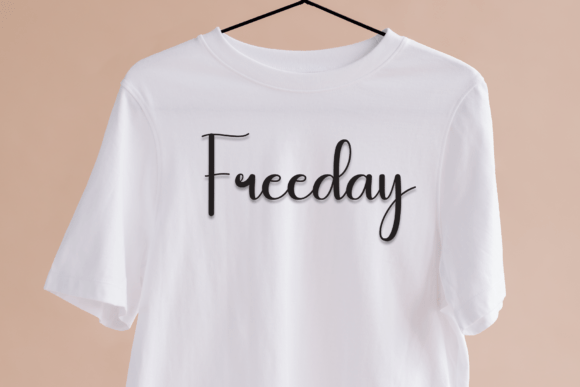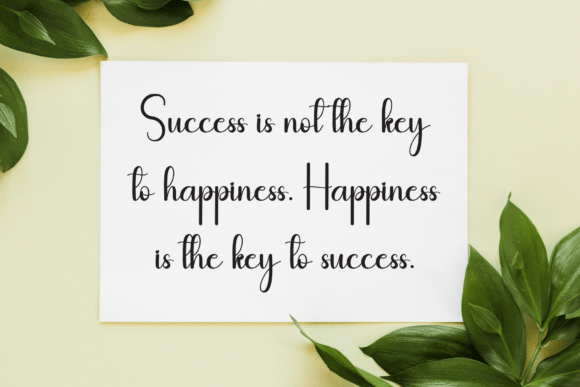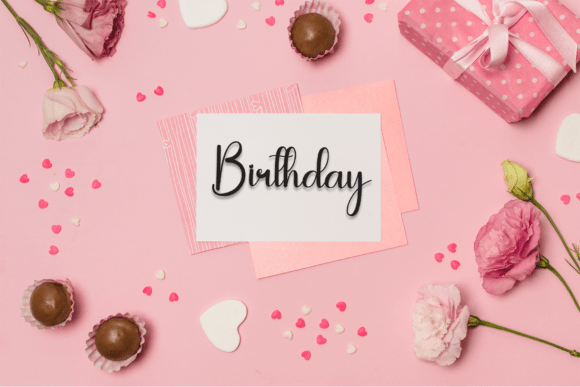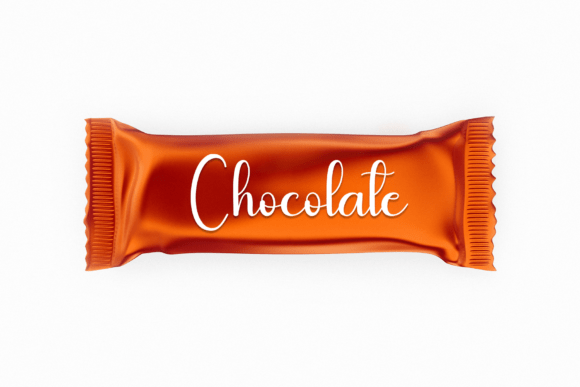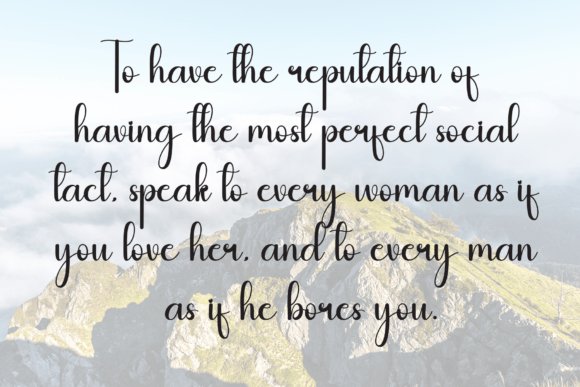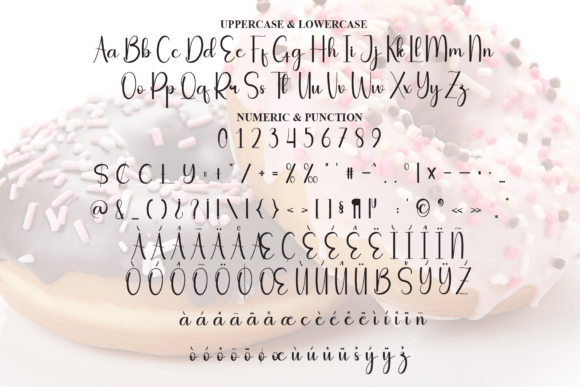
The Sweet Spot: Discovering the Elegance of Donuts Font
I’ll never forget the time I was working on a branding project for a boutique bakery, and I was on a mission to find the perfect font to capture their elegant yet playful vibe. I scrolled through countless font libraries, but nothing seemed quite right – until I stumbled upon Donuts. This stylish handwritten script font has since become a staple in my design toolkit, and I’m excited to share its charm with you. 🍩
A First Impression: What Makes Donuts Font Special
Donuts is more than just a font – it’s a statement piece. Its fluid, graceful strokes exude elegance and charm, making it perfect for branding, invitations, and stationery. The smooth curves and natural flow create a timeless, refined look that adds a personal and sophisticated touch to any design.
Here’s what I love about Donuts:
- ✨ Elegant and refined appearance that’s perfect for high-end designs
- 🌈 Beautifully crafted with attention to detail and a clear design vision
And, like any font, Donuts isn’t without its quirks:
- 🤔 Some users may find the font a tad too ornate for very casual or playful designs
- ⚠️ Limited use of uppercase letters, which may require creative workarounds
- Experiment with OpenType features, such as ligatures and stylistic alternates, to add visual interest
- Explore the font’s glyphs and OpenType features, such as swashes and ornaments, to add a creative touch
The Story Behind Donuts: Designer Inspiration
Donuts was crafted with love and care by a talented type designer who aimed to create a font that would evoke the elegance of a bygone era. Inspired by classic calligraphy and handwritten scripts, Donuts is a modern interpretation of timeless design principles.
Q: What type of designs is Donuts best suited for?
A: Donuts is perfect for branding, invitations, stationery, and any design that requires an elegant, refined touch.
Q: Does Donuts support OpenType features?
A: Yes, Donuts supports OpenType features, including ligatures, stylistic alternates, and glyphs.